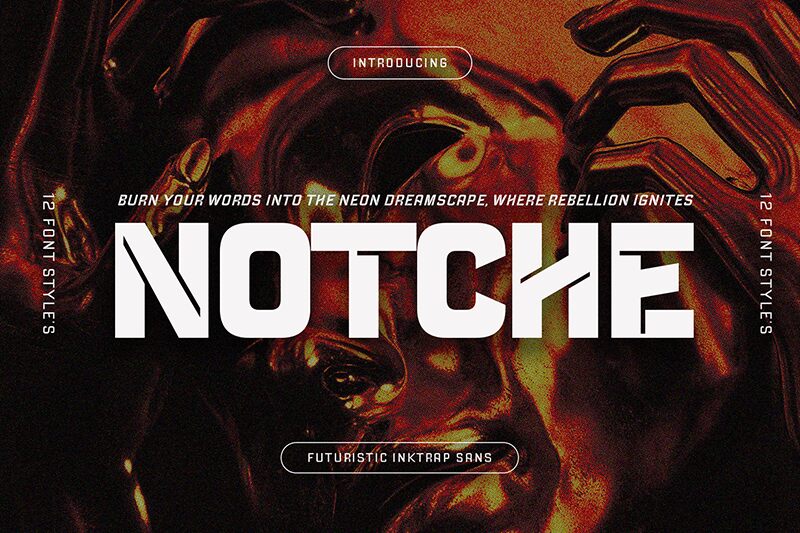
CF Notche Demo Bold
CF Notche Bold font by Creatifont Studios is a free techno display font that flaunts a modern geometric design. The typeface is structured, with certain distinctive cutouts which add to the captivating appearance of each text created. Modern and futuristic yet straightforward letters make CF Notche Bold suitable for instant and advanced professional projects.
The typographic work carries a strong presence everywhere it's used, whether you're working on packaging and labels, branding or apparel items, magazine covers or headlines, advertising or promotional posters, stationery designs or badges/logos.